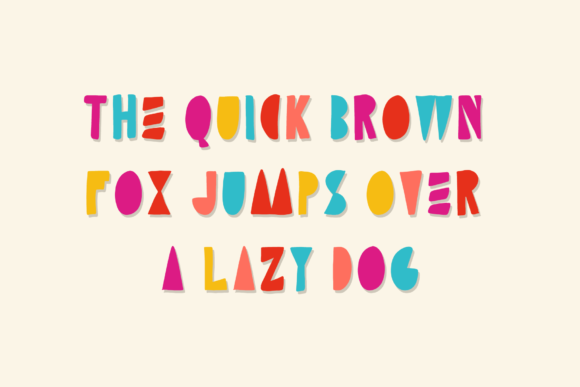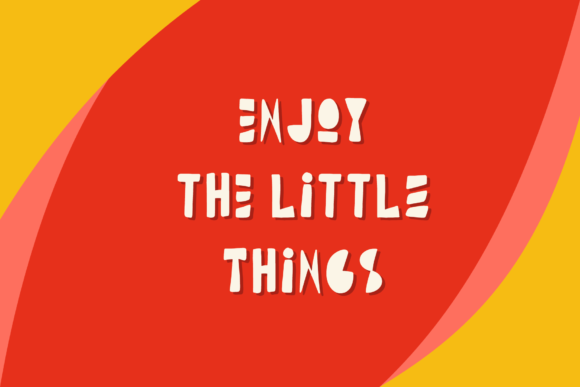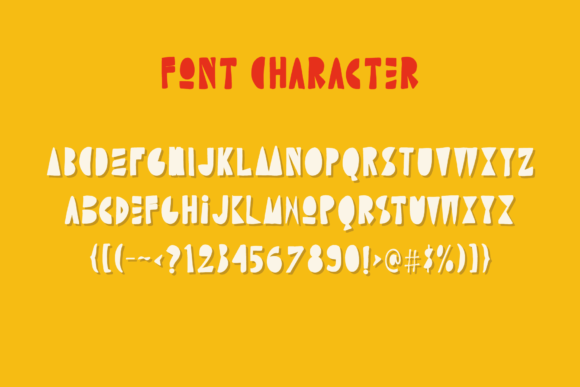
Introducing Bioli Bounces: The Playful Display Typeface that Celebrates Abstract Shapes
In the world of typography, few fonts manage to capture the essence of playfulness and eclecticism as effectively as Bioli Bounces. This stunning display typeface font is a celebration of abstract shapes in all their beauty, making it a perfect addition to any design project that requires a touch of whimsy and creativity. In this article, we’ll dive into the world of Bioli Bounces, exploring its unique features, and what makes it an outstanding choice for designers and crafters alike.
The Concept Behind Bioli Bounces
Bioli Bounces is more than just a font – it’s a conceptual display typeface that embodies the spirit of abstract shapes. The font’s creator aimed to craft a typeface that would showcase the beauty of irregular forms, bringing a sense of playfulness and dynamism to the world of typography. The result is a font that is both visually striking and versatile, making it perfect for a wide range of applications, from branding and advertising to packaging and digital design.
Key Features of Bioli Bounces
So, what makes Bioli Bounces so special? Here are some of its key features:
- Unique Abstract Shapes: Bioli Bounces features a wide range of abstract shapes, each one carefully crafted to bring a sense of playfulness and eclecticism to your designs.
- Playful and Dynamic: The font’s irregular forms and bouncing curves give it a sense of movement and energy, making it perfect for designs that require a touch of whimsy.
- Highly Versatile: Bioli Bounces is a highly versatile font that can be used in a wide range of contexts, from digital displays to print materials.
- Easy to Read: Despite its abstract nature, Bioli Bounces is surprisingly easy to read, making it perfect for headlines, titles, and short paragraphs of text.
What Makes Bioli Bounces Stand Out
In a world where typography is more important than ever, Bioli Bounces stands out from the crowd. Here are just a few reasons why:
- Uniqueness: Bioli Bounces is a truly one-of-a-kind font that will set your designs apart from the rest.
- Creativity: The font’s abstract shapes and playful curves inspire creativity and experimentation, making it perfect for designers who want to push the boundaries of typography.
- Flexibility: Bioli Bounces can be used in a wide range of contexts, from bold and bright to subtle and muted.
Using Bioli Bounces in Your Designs
So, how can you use Bioli Bounces in your designs? Here are a few ideas to get you started:
- Branding and Logo Design: Bioli Bounces is perfect for creating bold and eye-catching logos that will set your brand apart.
- Advertising and Marketing: The font’s playful curves and abstract shapes make it perfect for attention-grabbing headlines and titles.
- Packaging Design: Bioli Bounces can add a touch of whimsy and creativity to your packaging designs, making them stand out on store shelves.
- Digital Design: The font’s digital-friendly design makes it perfect for use in websites, social media graphics, and more.
Bioli Bounces is a game-changing display typeface font that celebrates abstract shapes in all their eclectic beauty. With its unique features, playful curves, and highly versatile design, it’s the perfect addition to any design project that requires a touch of whimsy and creativity. Whether you’re a designer, crafter, or simply someone who appreciates great typography, Bioli Bounces is sure to inspire and delight. So why not give it a try and see the difference it can make in your designs?